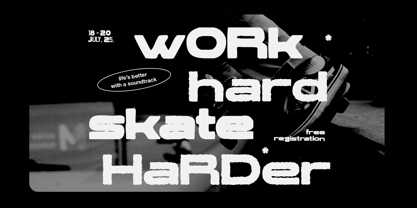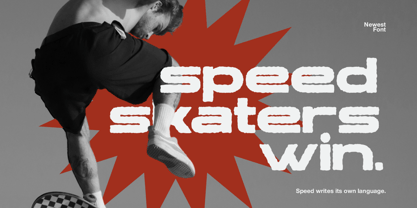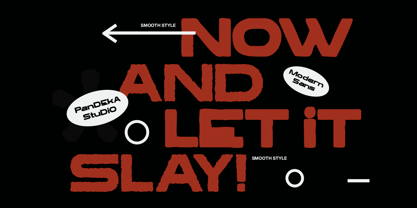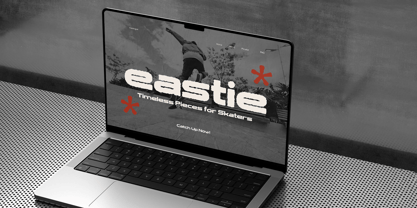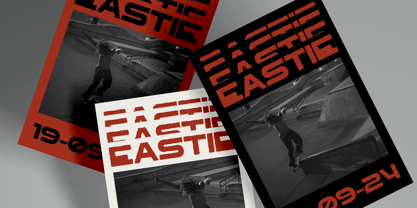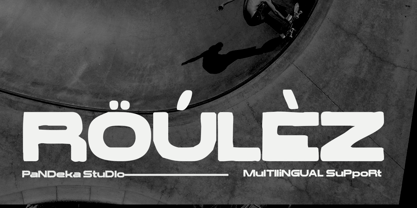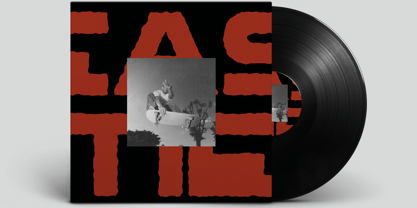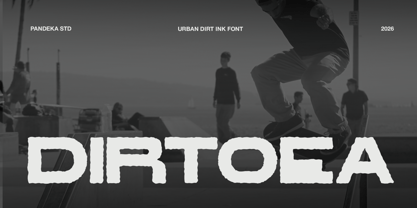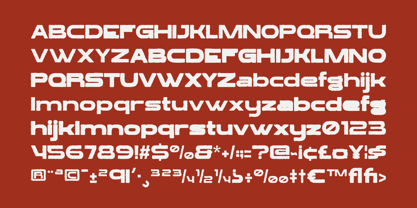
Dirtoea is a bold urban display font inspired by gritty street culture, skateboarding, underground music, and raw ink textures. Featuring rugged letterforms with distressed details, it captures an authentic handcrafted aesthetic that brings energy, attitude, and rebellious character to every design.
Available in 2 styles: Regular and Smooth, along with 29+ stylistic alternates, Dirtoea offers the flexibility to create expressive and unique typography for logos, streetwear branding, album covers, posters, sports graphics, merchandise, packaging, social media, and editorial headlines. Whether you're designing for skate brands, urban fashion, music events, extreme sports, or contemporary lifestyle projects, Dirtoea delivers a bold visual impact with an unmistakable street-inspired personality.
• 2 Styles: Regular and Smooth
• Full Character Set: Uppercase, lowercase, numbers, symbols, and punctuation
• 29+ Stylistic Alternates